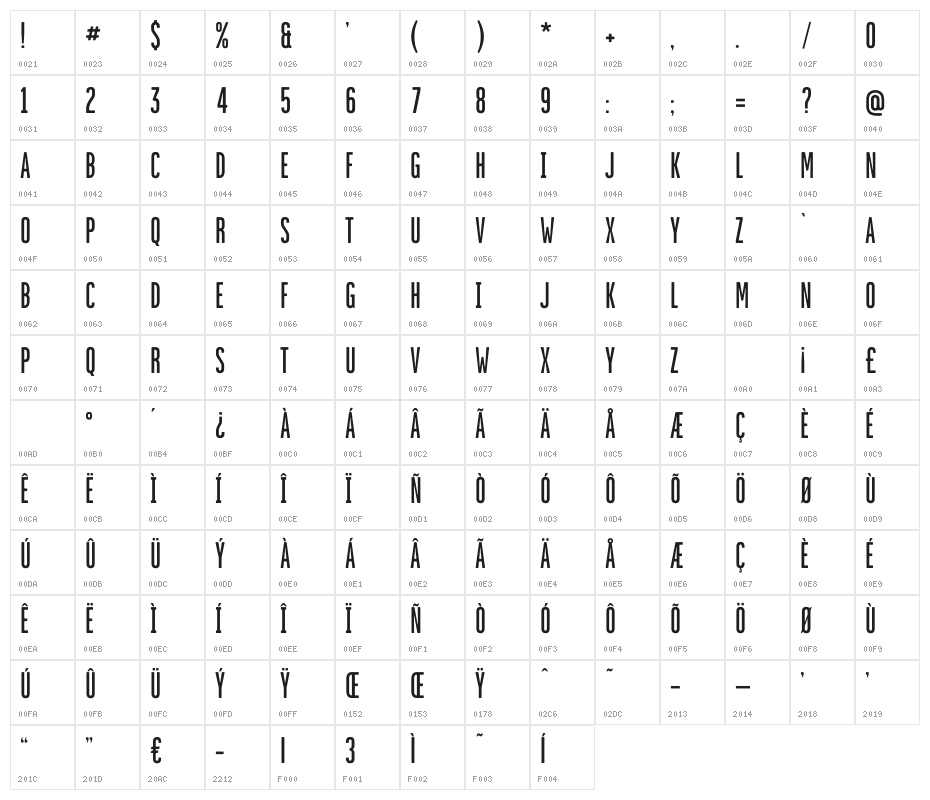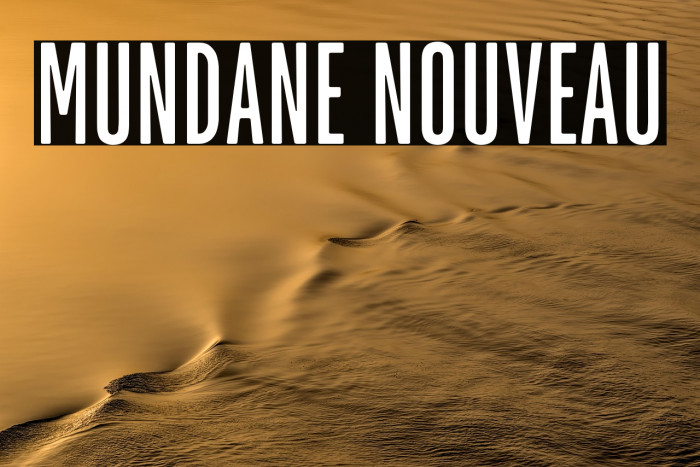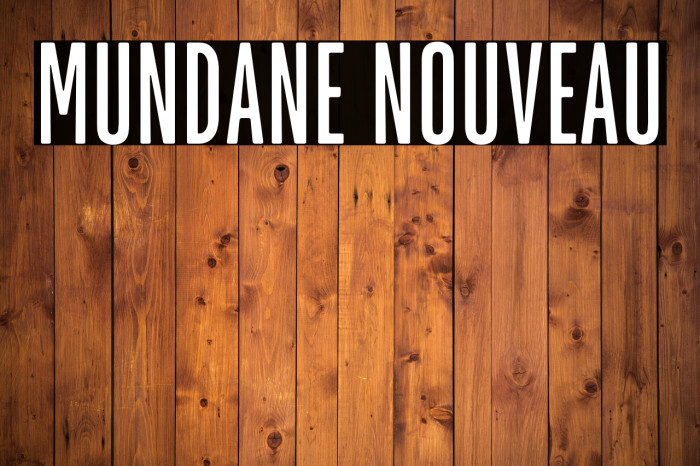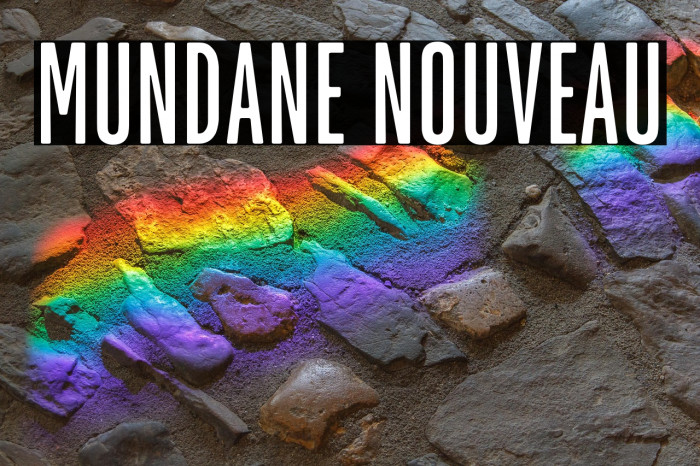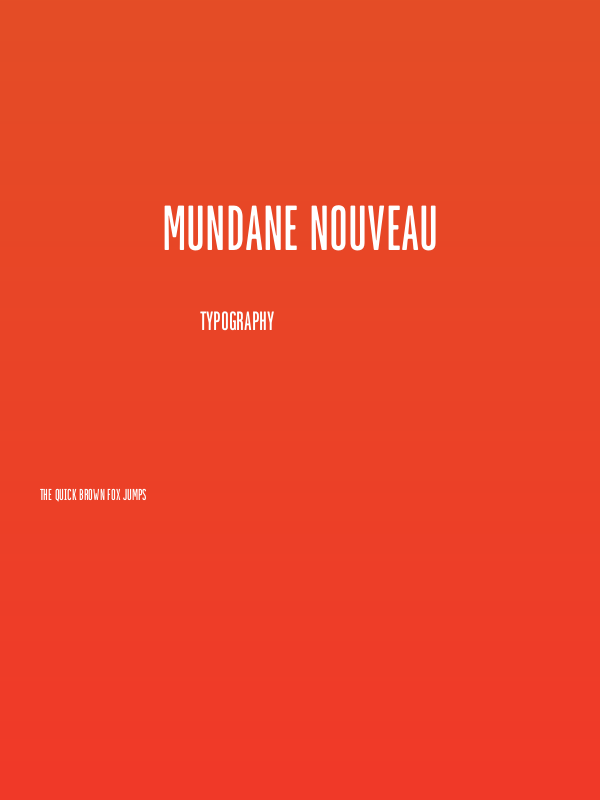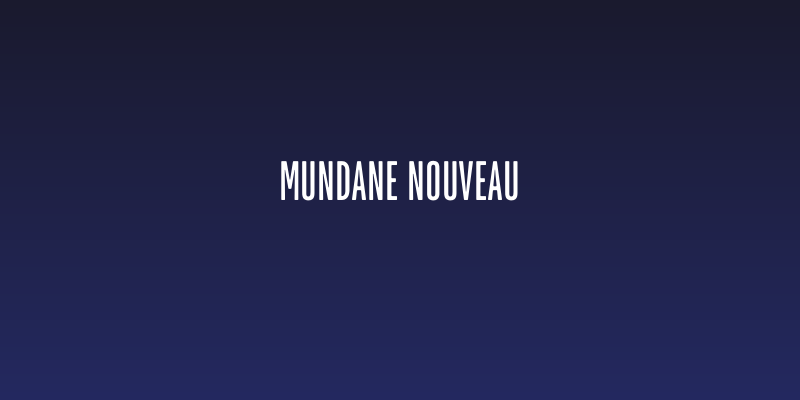
Mundane Nouveau Font
Mundane Nouveau Description
This font features a tall and narrow design with clean, straight lines and a modern aesthetic. The uppercase letters are uniform in height, creating a cohesive look, while the lowercase letters maintain a consistent style. The numerals are similarly elongated, matching the overall vertical emphasis of the typeface. Special characters are included, maintaining the same sleek and contemporary feel. The font's design is minimalistic yet striking, making it suitable for a variety of modern applications.
| Proposed Projects | Ideal for modern branding, editorial headlines, posters, and digital media where a contemporary and sleek look is desired. |